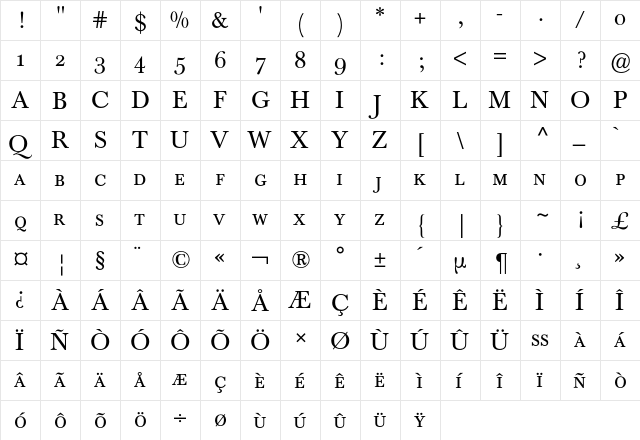
Baskerville Expert BQ Regular
Design Context for Baskerville Expert BQ Typeface
Baskerville Expert BQ offers clean, dependable letterforms without strong stylistic allegiance, making it a practical choice for designers who need flexibility.